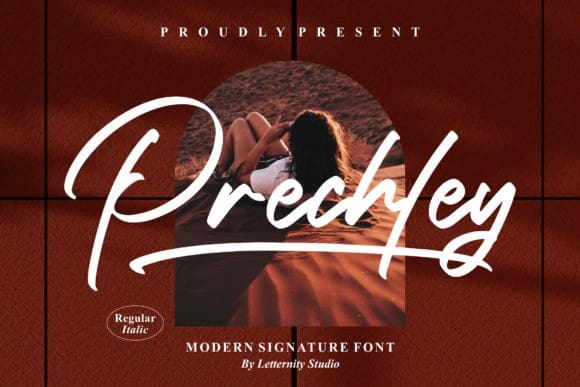
Prechley Script Font
Prechley Script Font is a stylish and fashionable script font. It is suitable for any projects such as: logos, branding projects, homeware designs, product packaging, mugs, quotes, posters, shopping bags, and various other lovely projects that need a beautiful script taste.